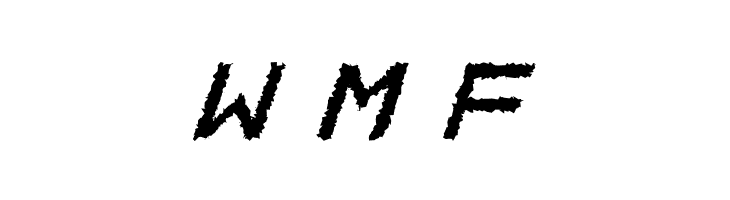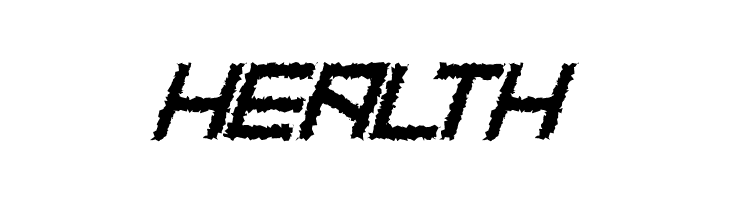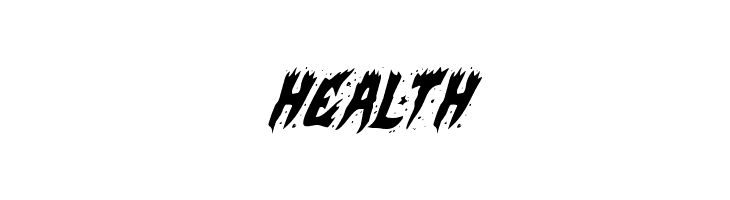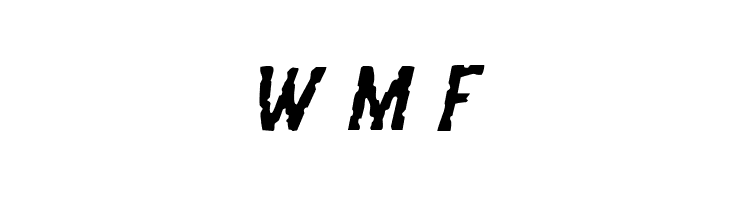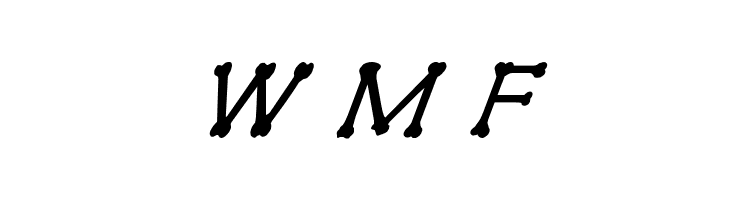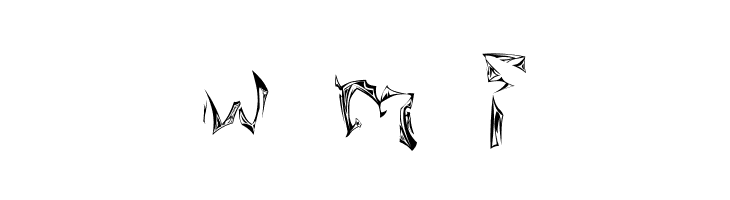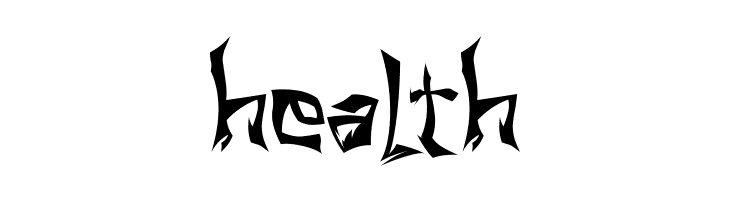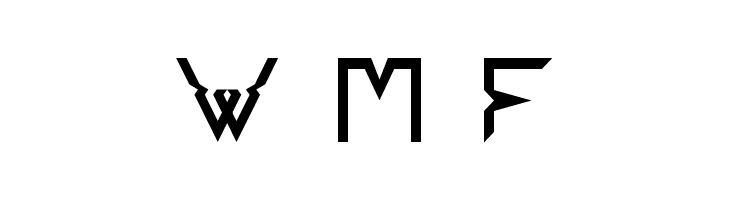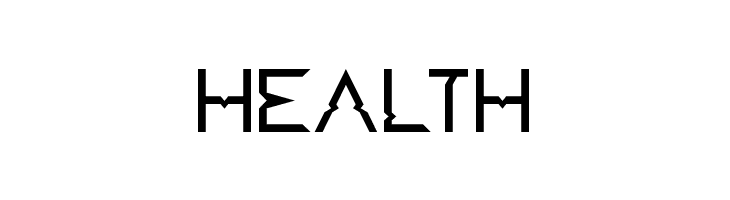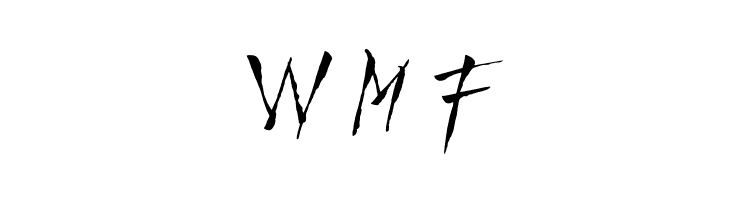
A bold, distressed font with a grunge aesthetic and textured appearance.
A bold, distressed font with a grunge aesthetic and splatter effects.
A bold, distressed font with a grunge aesthetic.
A bold, distressed font with a grunge, weathered appearance.
A bold, distressed font with a grunge aesthetic and rugged texture.
A bold, chaotic display font with a punk rock aesthetic and distressed look.
A bold, distressed font with a grunge aesthetic and geometric shapes.
A bold, distressed font with a grunge, textured style.
A bold, distressed font with a gritty, urban street art style.
A bold, distressed font with a rugged, grunge aesthetic.
A bold, distressed font with a grunge aesthetic and angular, geometric characters.
A bold, distressed font with a grunge aesthetic and chaotic texture.
A bold, distressed font with a grunge aesthetic, perfect for edgy designs.
A bold, distressed font with a rugged, hand-crafted appearance.
A distressed, jagged font with a chaotic and edgy appearance.
A bold, distressed, and condensed font with a grungy aesthetic.